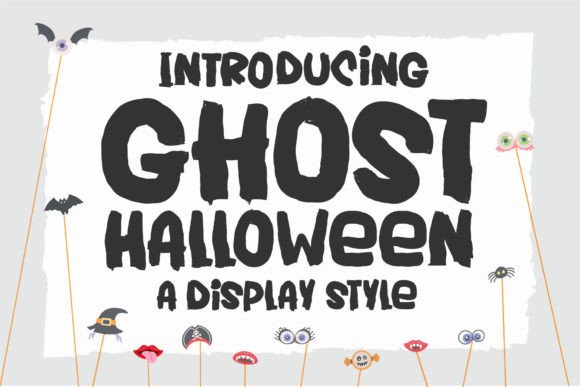
Unleash the spooky charm of Halloween with Ghost Halloween Font, a captivating display font that adds a haunting touch to your designs. This playful yet eerie font is perfect for creating eye-catching door signs, invitations, posters, and any Halloween-themed project.
Picture this: your front door adorned with a sign that says "Happy Halloween" in the hauntingly beautiful Ghost Halloween Font. The unique brush strokes and playful curves of this font create a welcoming and inviting atmosphere, drawing trick-or-treaters to your door like moths to a flame.
With its bold and distinct appearance, Ghost Halloween Font is sure to make a lasting impression. The font's versatility extends beyond Halloween; it can add a touch of whimsy and fun to birthday invitations, nursery decor, and even social media posts.
Embrace the spirit of Halloween and elevate your designs with Ghost Halloween Font. Its enchanting style and versatility make it a must-have for any designer looking to add a personal and captivating touch to their work.